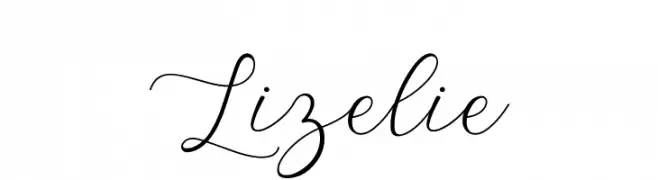
A graceful script font with flowing, connected strokes and elegant style.
A graceful and elegant script font with fluid, interconnected strokes.
Elegant cursive font with flowing, connected letters and a sophisticated style.